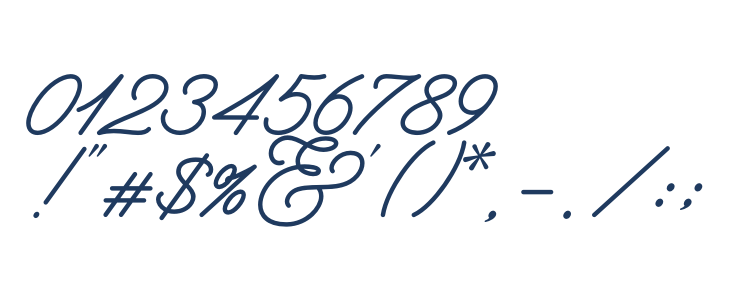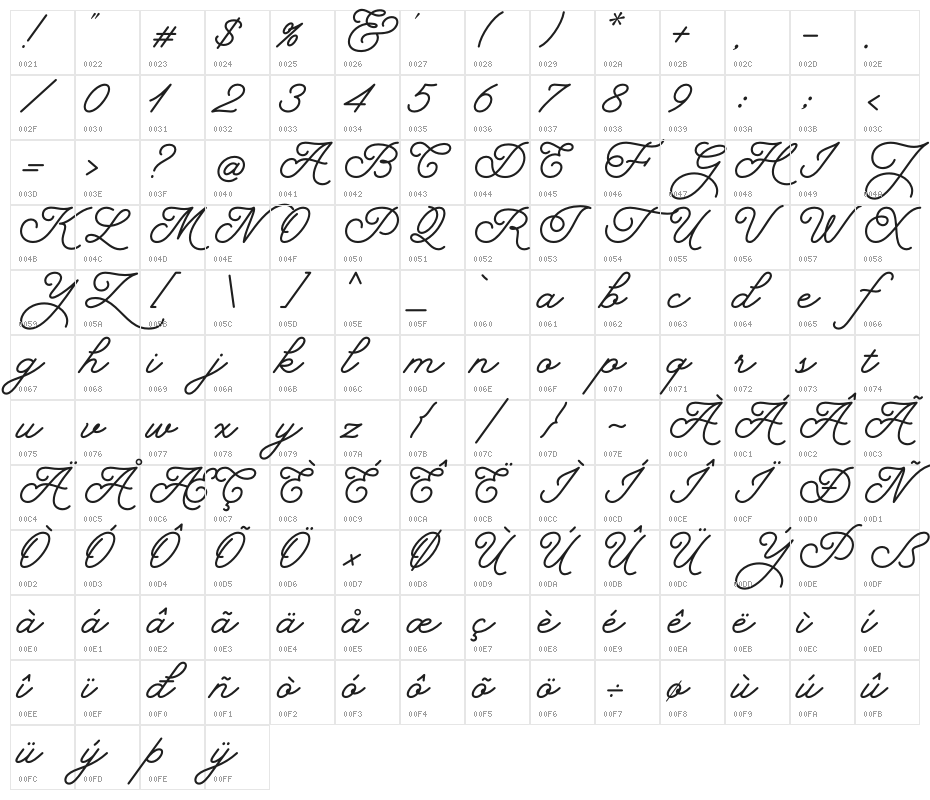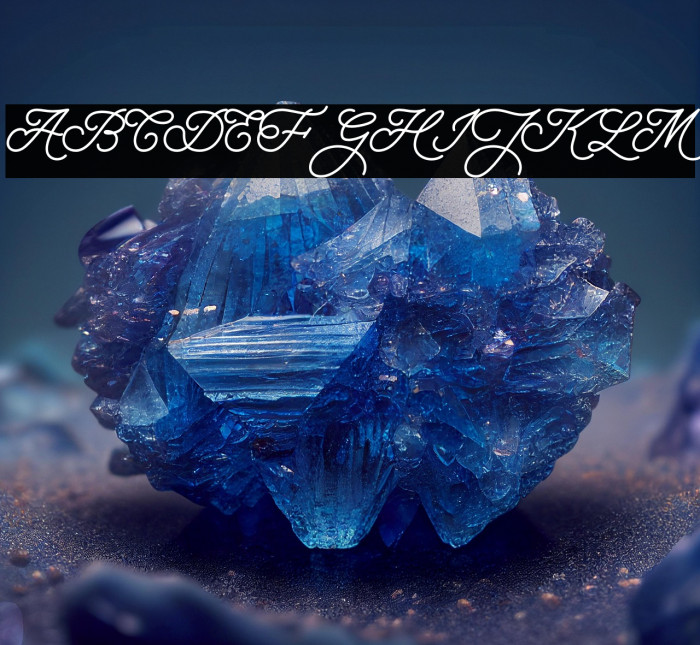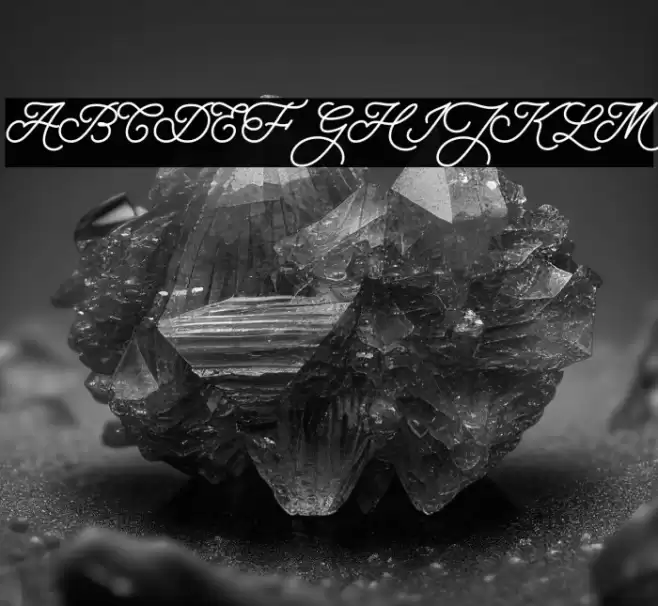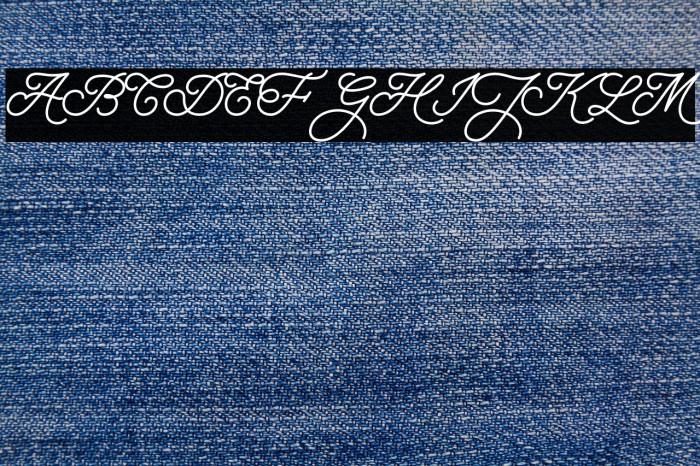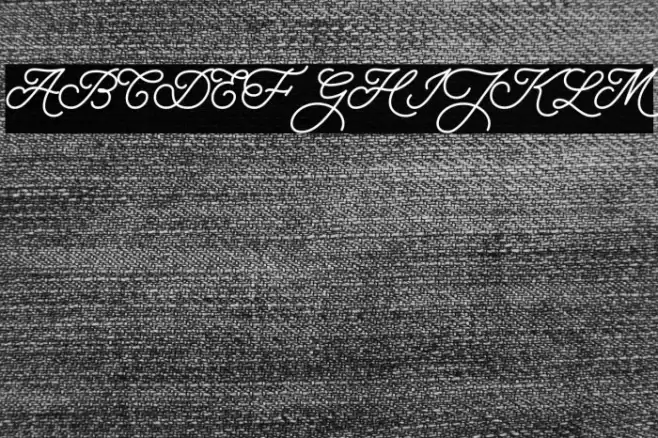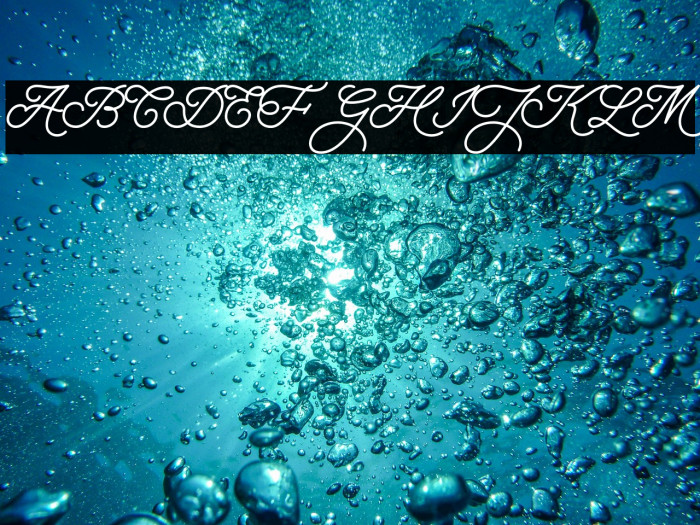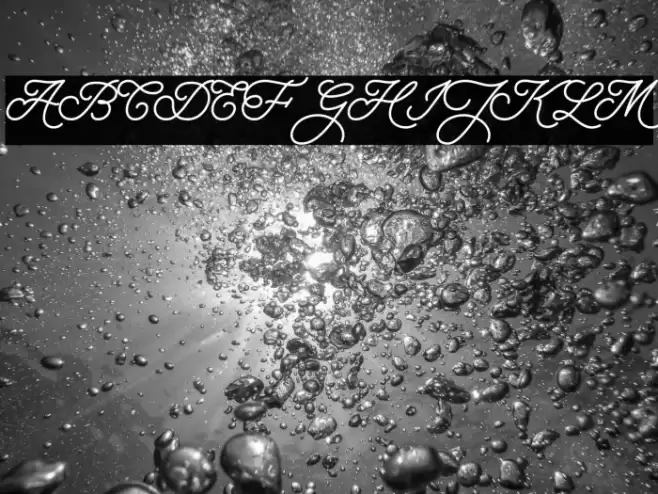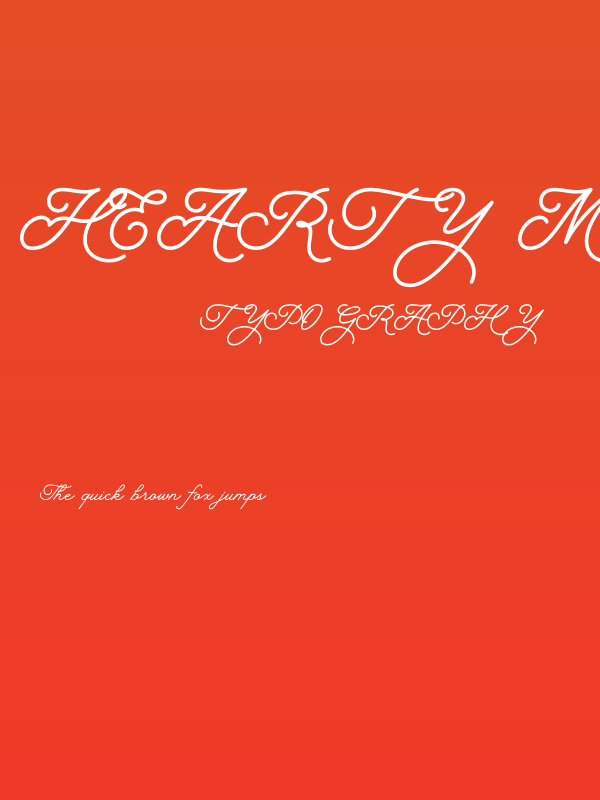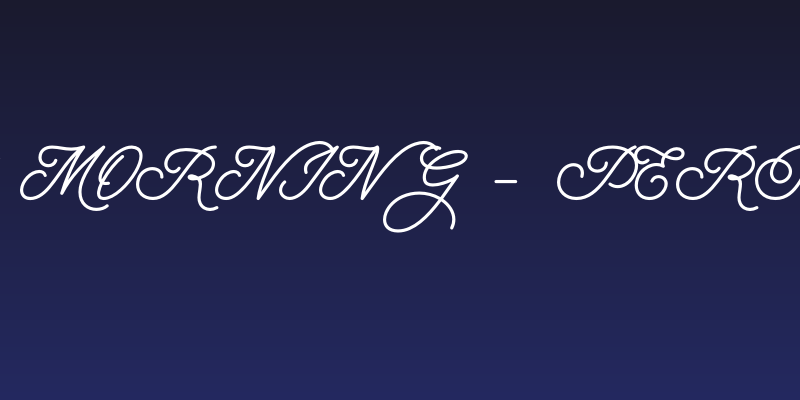
Hearty Morning - Personal Use Font
Hearty Morning - Personal Use Description
This elegant script font features a flowing, cursive style with intricate loops and swashes, giving it a sophisticated and graceful appearance. The uppercase letters are ornate and decorative, while the lowercase letters maintain a smooth, connected flow, enhancing readability. The numerals are consistent with the script style, offering a harmonious blend with the alphabet. Special characters are thoughtfully designed to match the overall aesthetic, making this font suitable for a variety of creative applications. Its delicate strokes and refined curves make it ideal for projects that require a touch of elegance and personal flair.